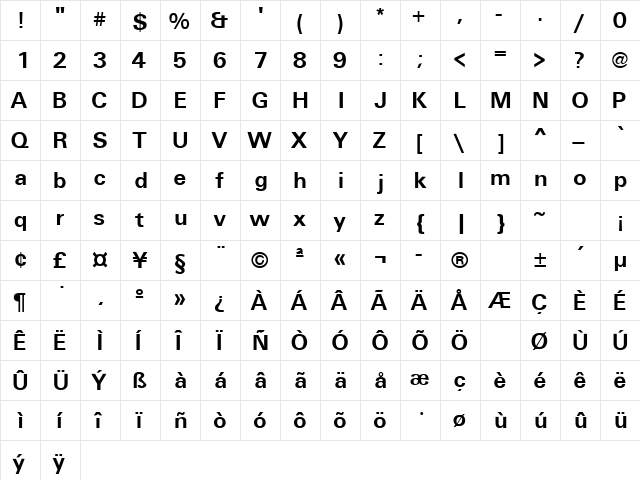
ReferenceSSK Regular
Design Context for ReferenceSSK Typeface
ReferenceSSK offers clean, dependable letterforms without strong stylistic allegiance, making it a practical choice for designers who need flexibility.